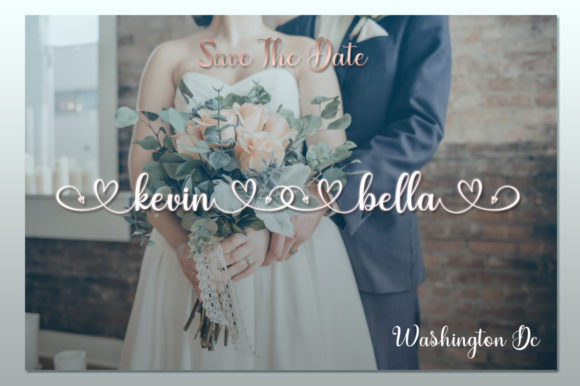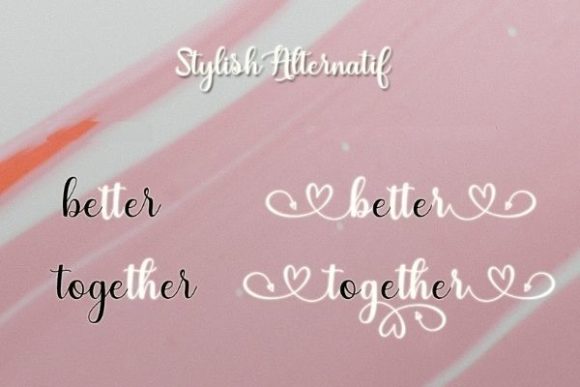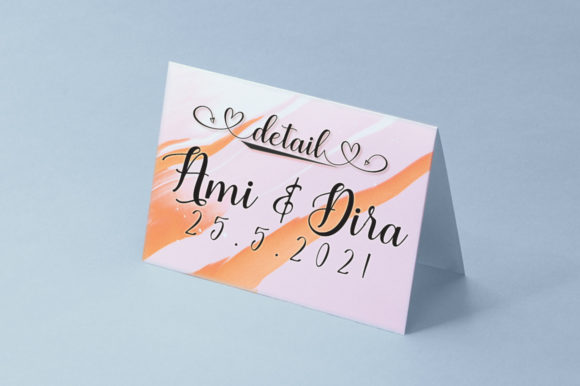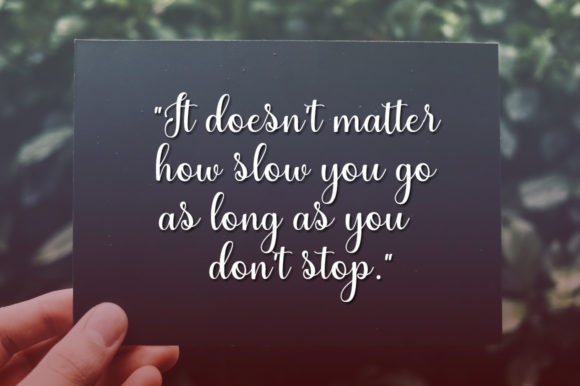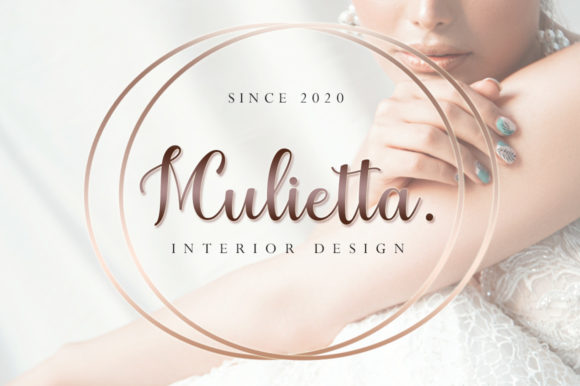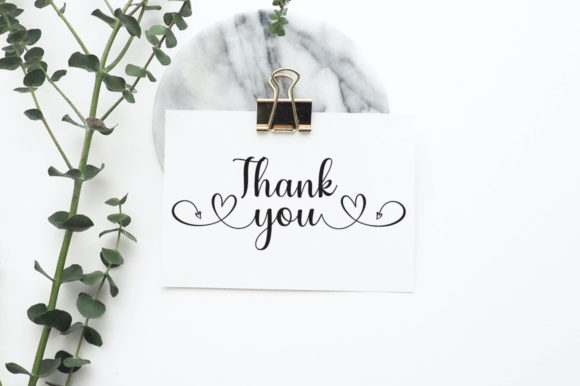
Dangellio Font
About Dangellio Font
Dangellio is a chic and romantic script font that features flowing characters and additional heart swashes. This font is PUA encoded which means you can access all of the glyphs and swashes with ease!